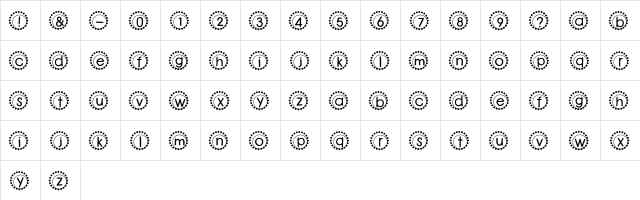
2Peas Ring Ding Regular
2Peas Ring Ding is a composed and adaptable typeface that performs quietly and consistently across a wide range of design contexts.